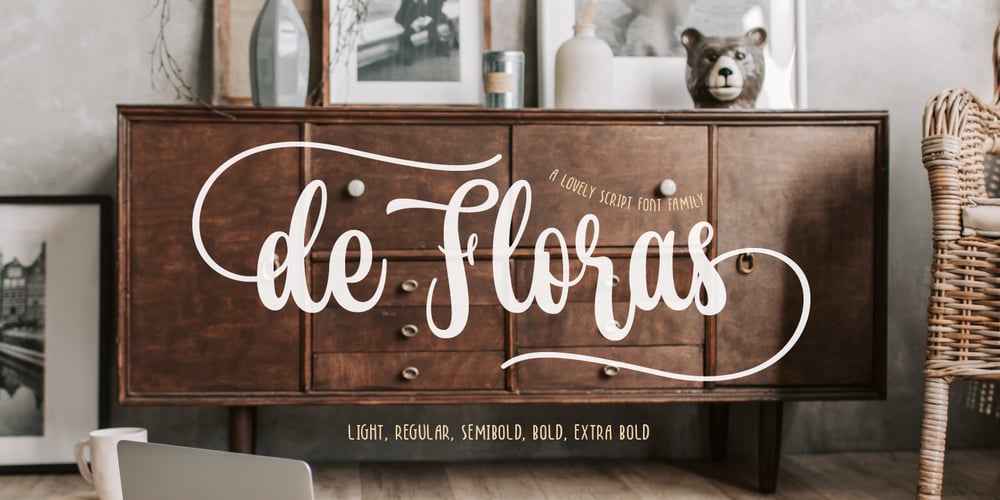
De Floras Font Family was designed by Andika Setiawan and published by Dikas Studio. De Floras contains 4 styles and family package options. Hello, let me introduce my font called de Floras – 5 Fonts Family.de Floras is a lovely and beautiful script typeface that designs manually by hand and love. de Floras comes with 5 weight, light, regular, semi bold, bold and extra bold. de Floras comes with a beautiful start and end swash that made who look for the first time is falling in love. Very suitable for designing wedding cards, birthday cards, invitation, greeting, and many more.